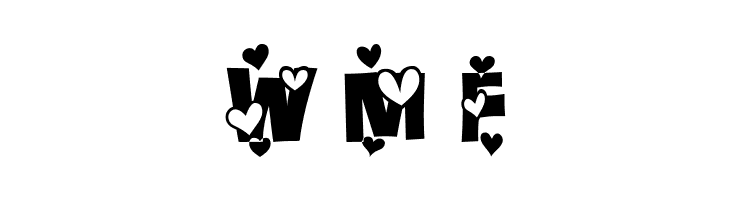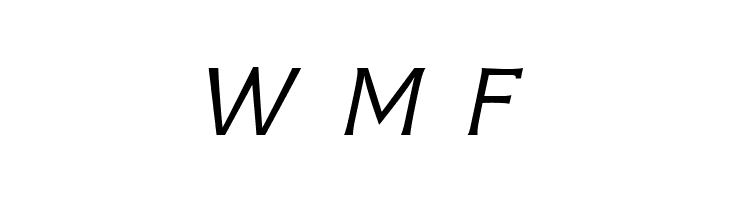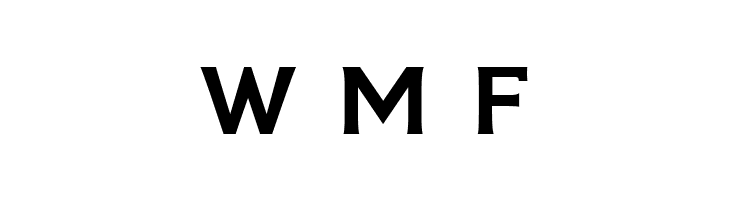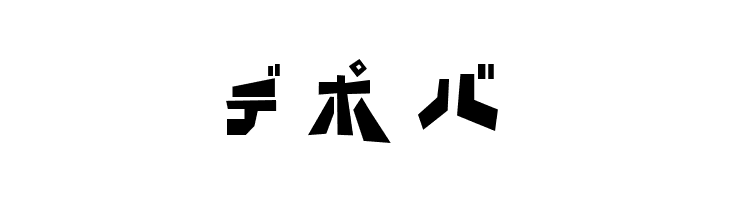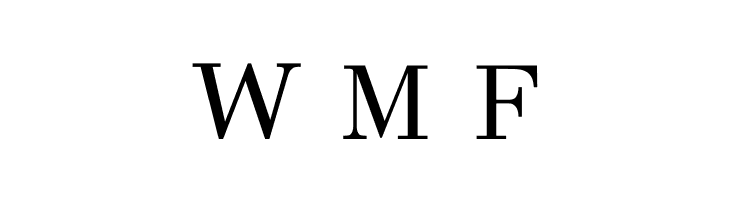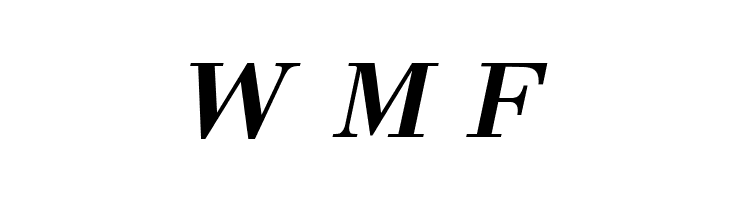
• Heartland Regular
A bold, decorative font with heart motifs, perfect for romantic and playful designs.
• GFS Didot Regular
A classic serif font with high contrast and refined elegance.
• GFS Neohellenic Italic
A modern italic font with elegant curves and a dynamic slant.
• GFS Neohellenic Regular
A clean, modern typeface with balanced proportions and consistent stroke width.
• GFS Neohellenic Bold Italic
• GFS Neohellenic Bold
A bold, modern typeface with geometric shapes and consistent stroke width.
• BD Wakarimasu KTA
• GFSDidot-Regular
A classic serif typeface with high contrast and elegant serifs.
• GFSDidot-Bold
A classic serif font with high contrast and elegant design.
• GFSDidot-BoldItalic
An elegant, high-contrast serif font with italic styling.